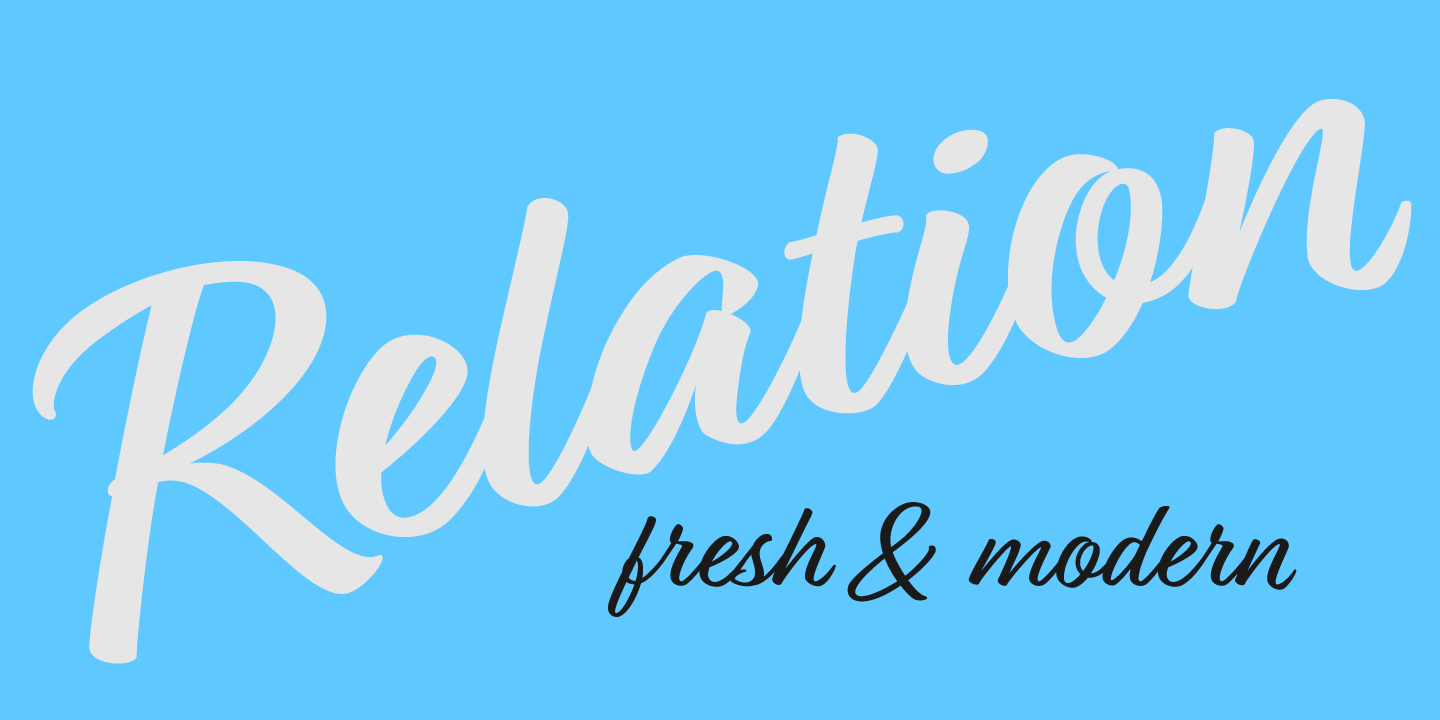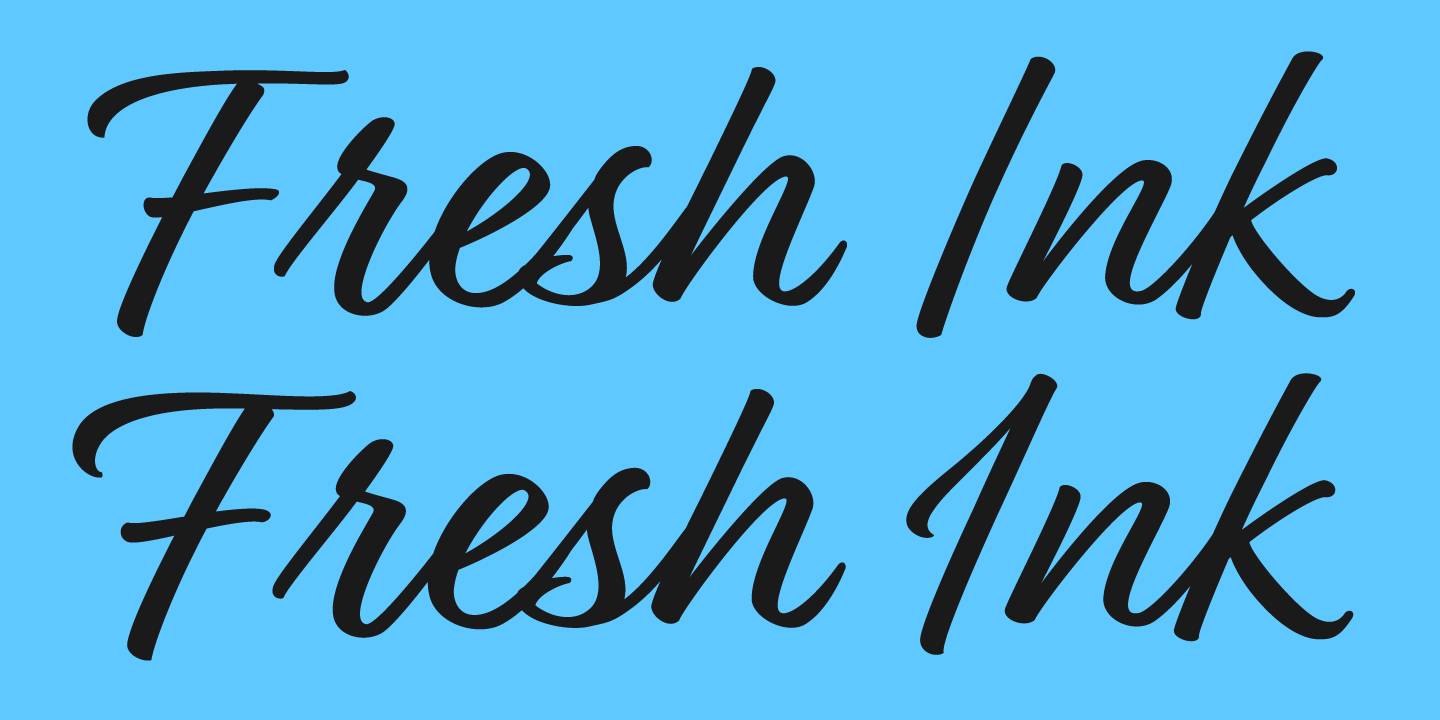
Relation
Relation is a beautiful brush script font with the fresh and modern look of hand lettering. The alternate version (Relation Two) has a different style of caps. Each
version is available in two weights: regular and bold. To get the most out of this typeface be sure to use a program that has opentype capabilities.